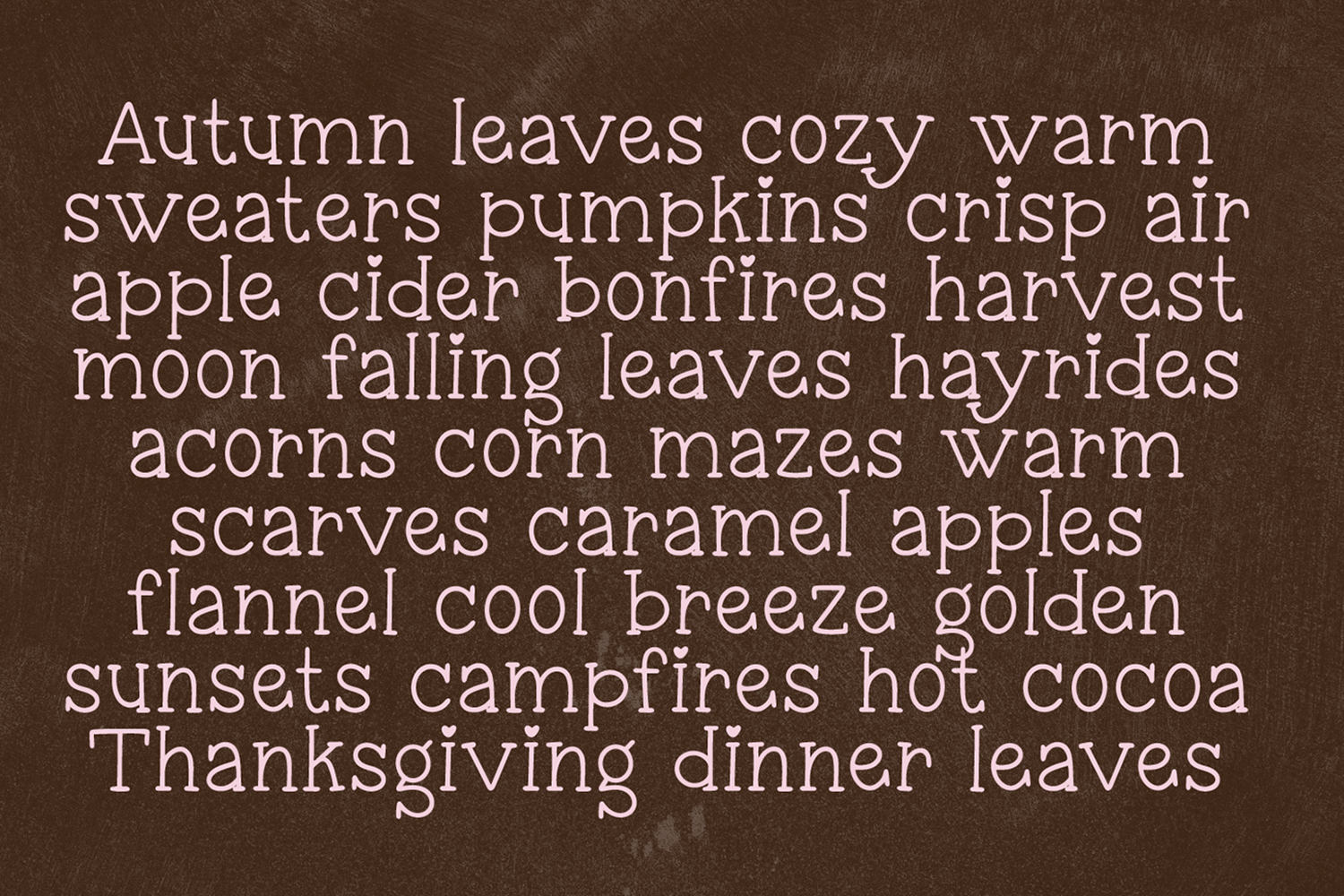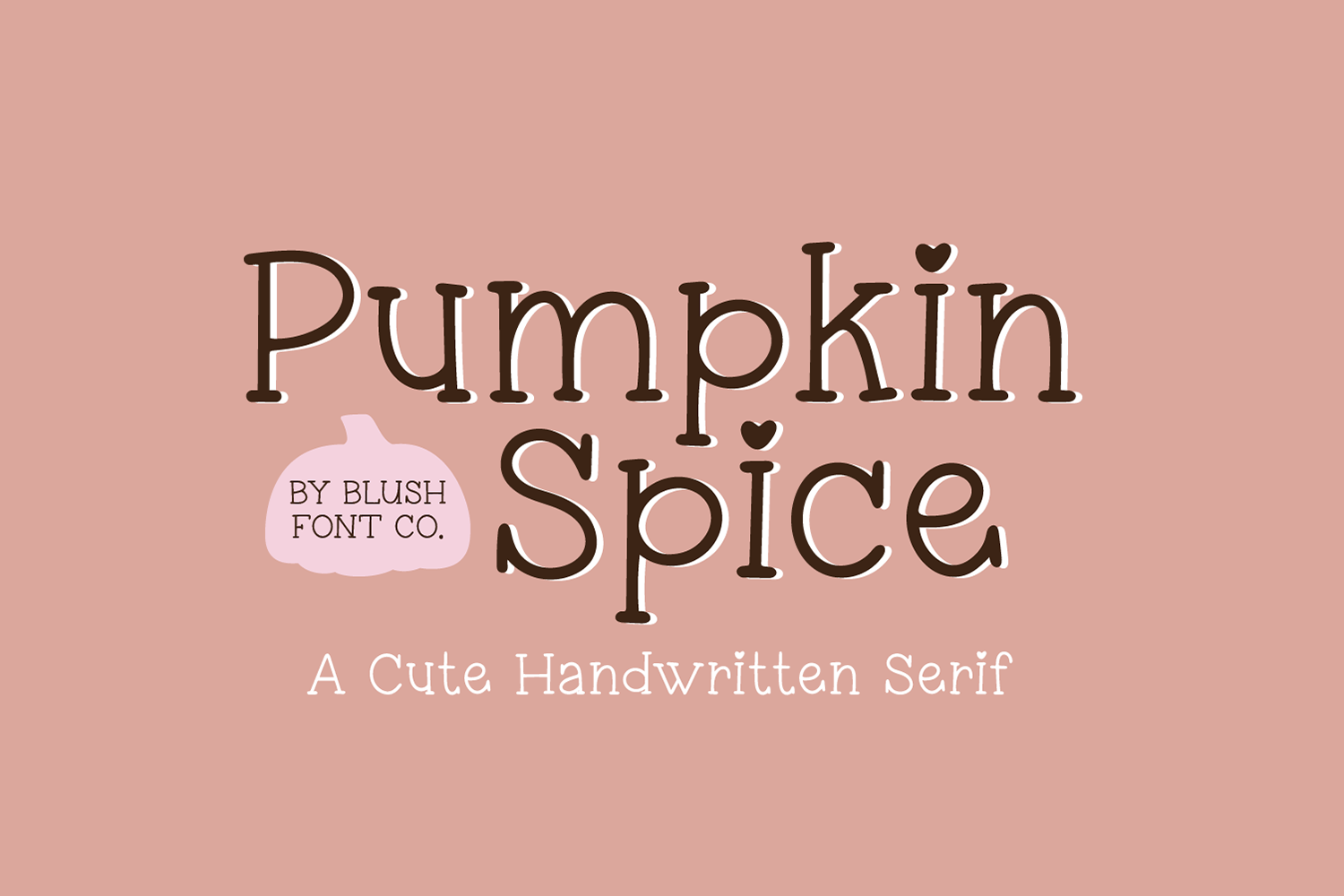
"Pumpkin Spice" Cute serif fall planner handwriting font
Pumpkin Spice is a simple and cute handwriting font that is perfect for social media or goodnotes or digital planning. Use it for branding, crafts for decor, invitations, and more! This font includes upper and lowercase glyphs, numbers, basic punctuation marks, and intl characters.